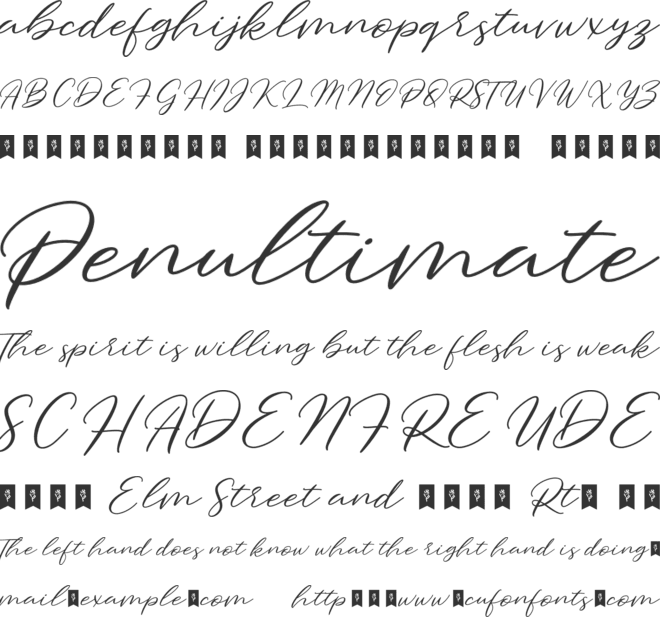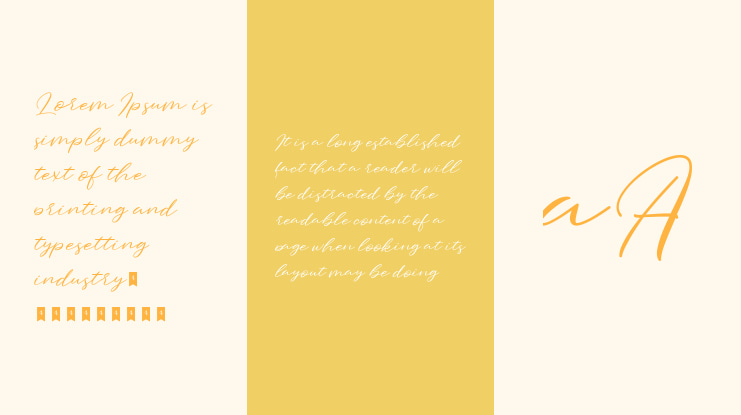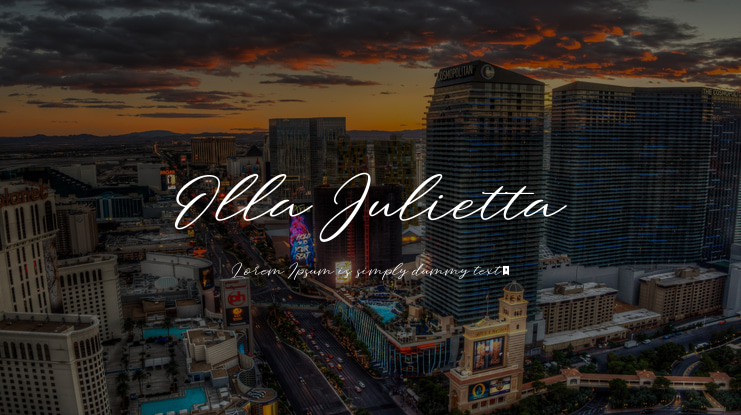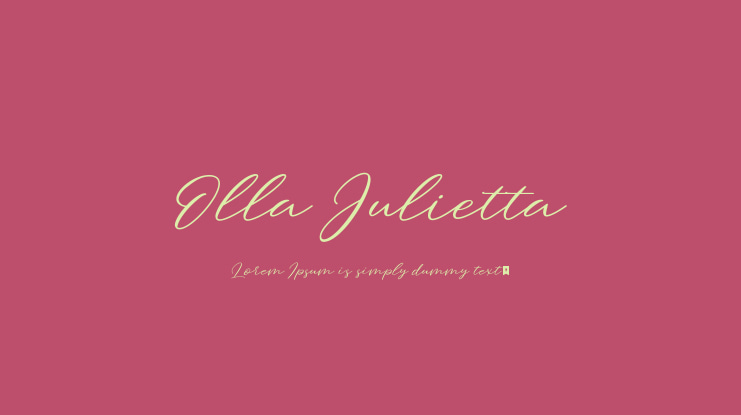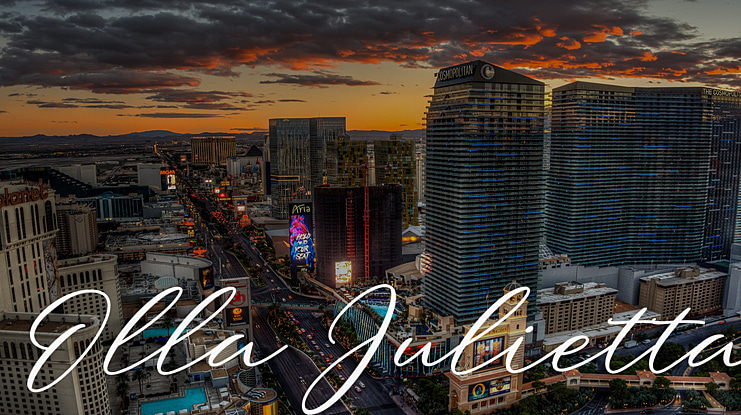
Olla Julietta Font
A Font by TheSundoro StdPlease read this before using the font. This version is a Personal to Use Only. If you wish to use it for commercial use, you need to purchase a premium license. Olla Julietta feels incredibly elegant and flowing. It looks stunning on wedding invitations, thank you cards, quotes, greeting cards, logos, business cards and every other design which needs a handwritten touch. It features a varying baseline, smooth lines, gorgeous glyphs and stunning alternates.Need for commercial use? https://fontbundles.net/thesundoro/841247-olla-juliettahttps://www.creativefabrica.com/product/olla-julietta/ref/239816Buy me a coffee?https://paypal.me/aluyeahstudioAny Question, you can submit your question here